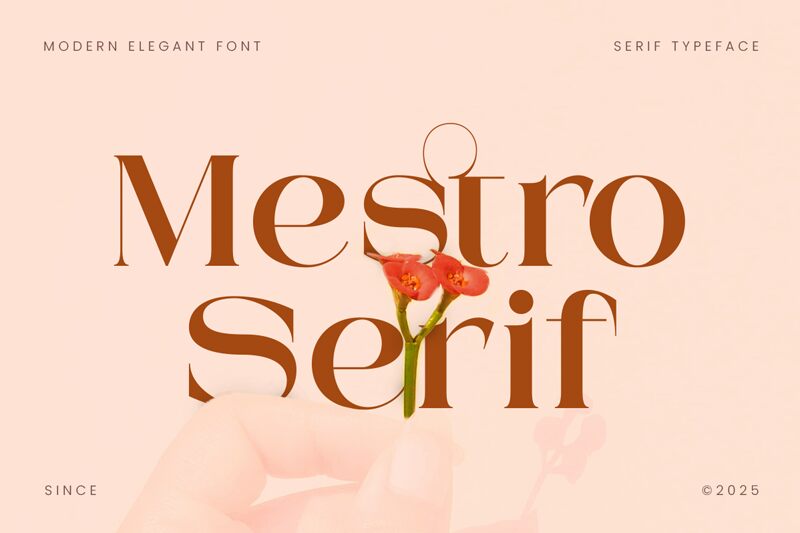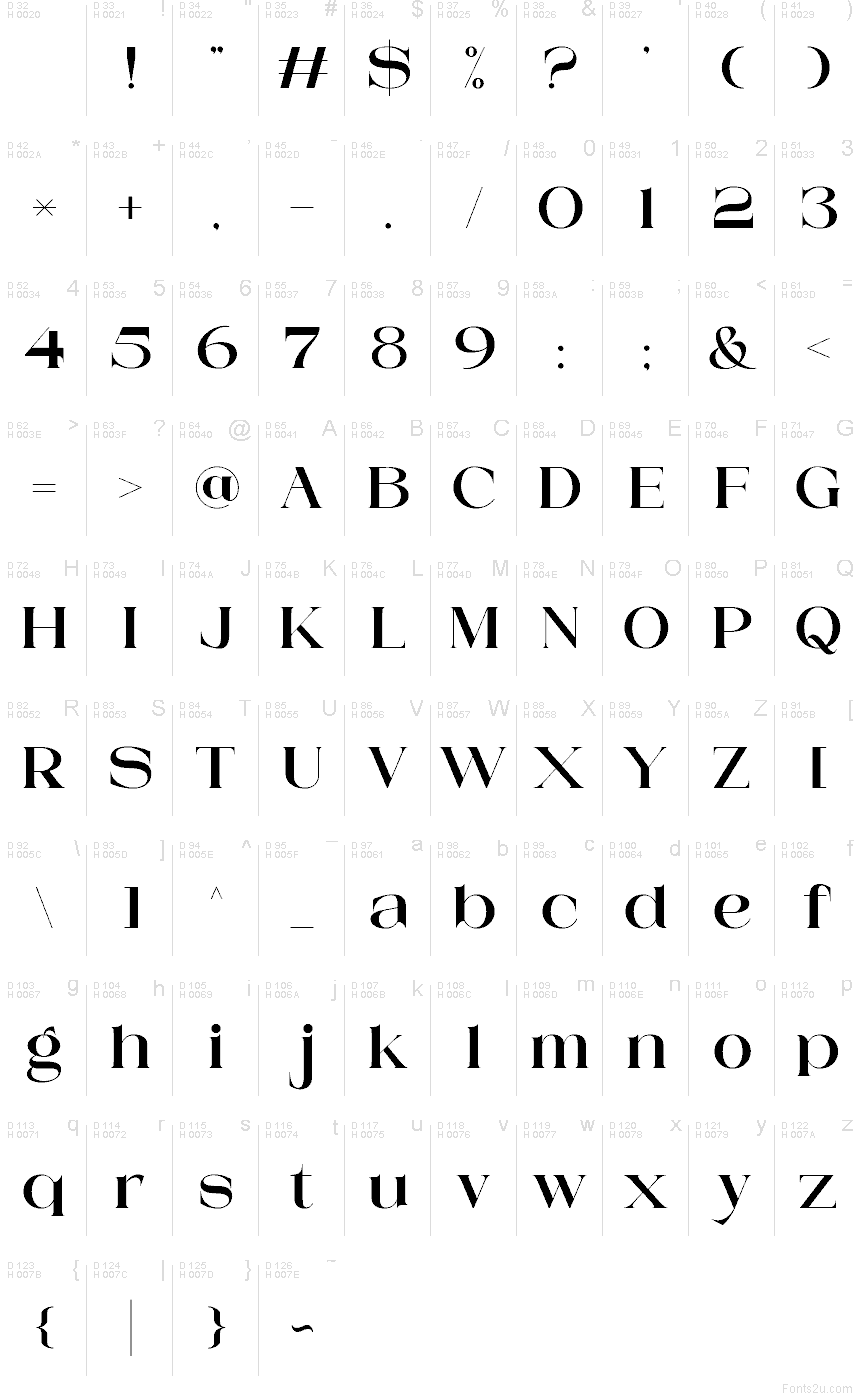
Mestro Serif
Mestro Serif font by ToniStudio is a free serif typeface that looks like it stepped straight off a fashion editorial spread. Its tall, elegant letters, razor-thin hairlines, and generous curves give every word a sense of poise and drama, while the tight rhythm between characters keeps headlines looking polished instead of fussy. There’s a subtle tension between its sharp cuts and smooth arches, which gives layouts a refined, modern edge.
Using Mestro Serif, you can instantly dress up brand identities, magazine covers, luxury packaging, social media graphics, invitations, and posters that need a couture feel. This free font shines in larger sizes where its delicate details can really breathe and catch the eye. Pair it with a simple geometric sans for body text, and let Mestro Serif handle the names, titles, and key phrases that need to feel sophisticated and memorable.